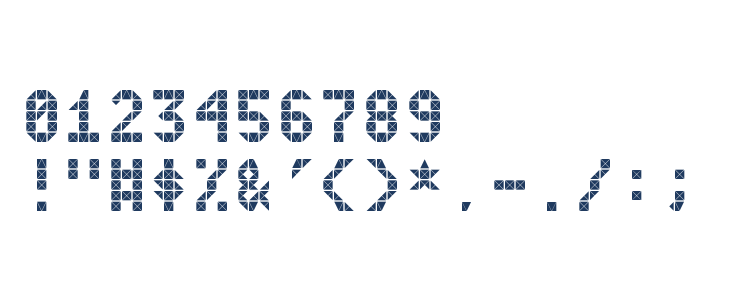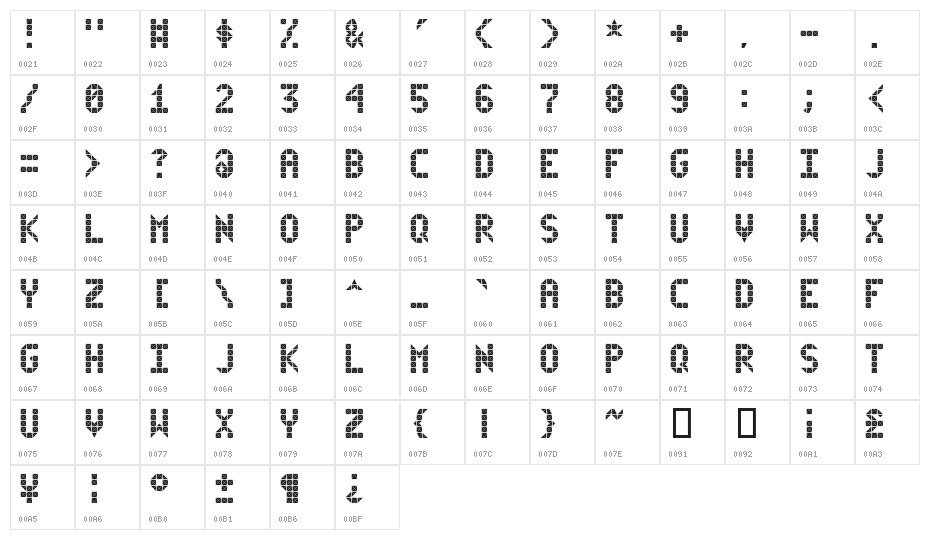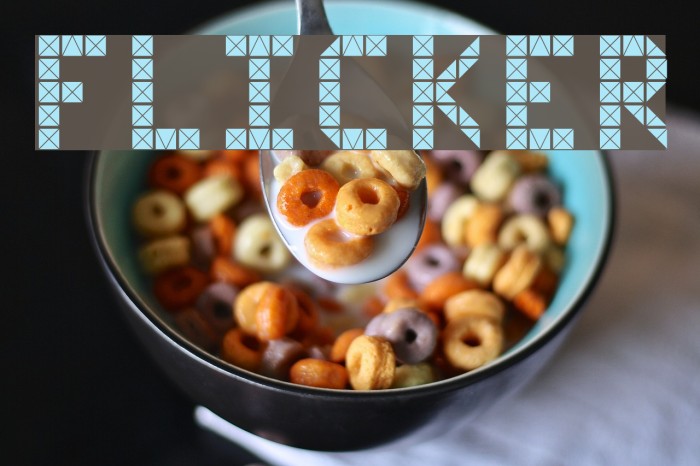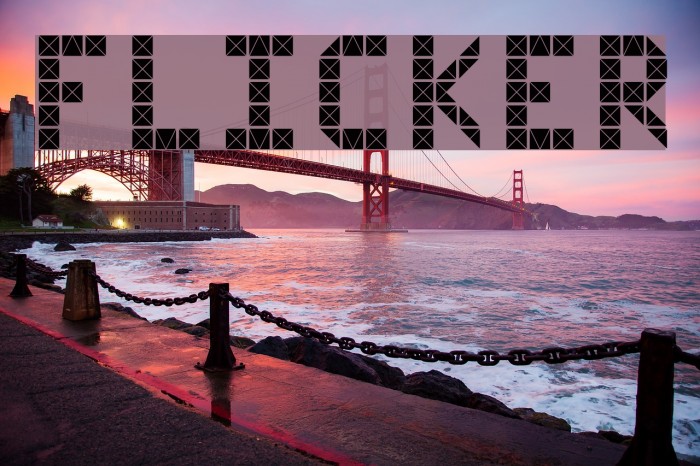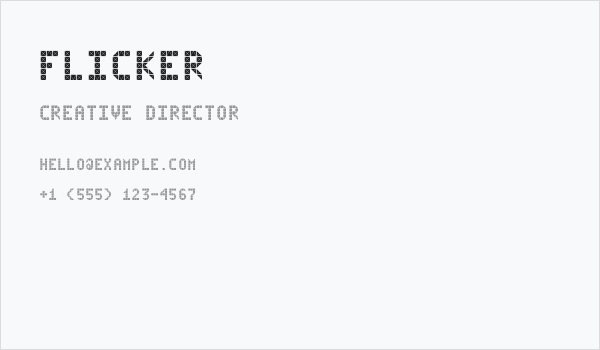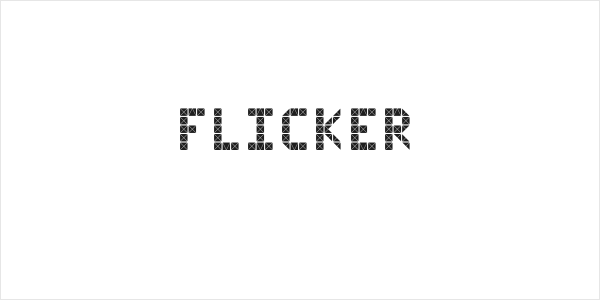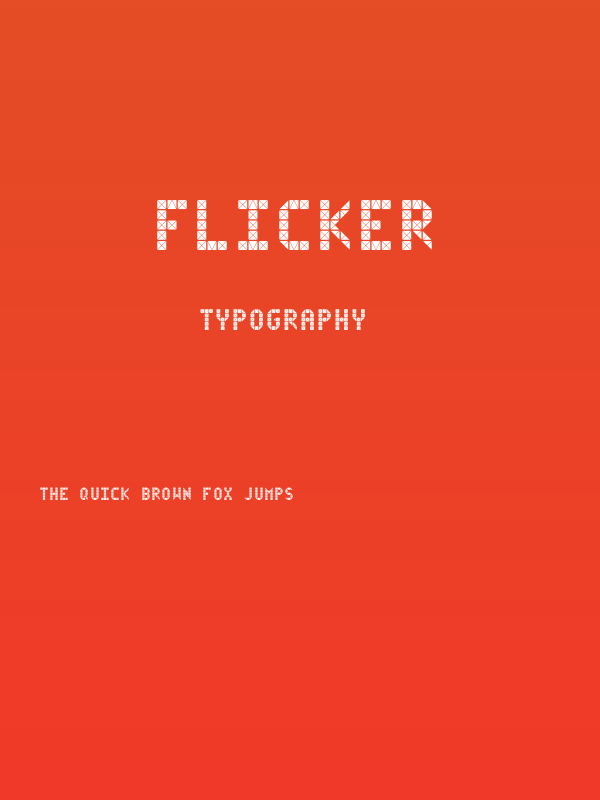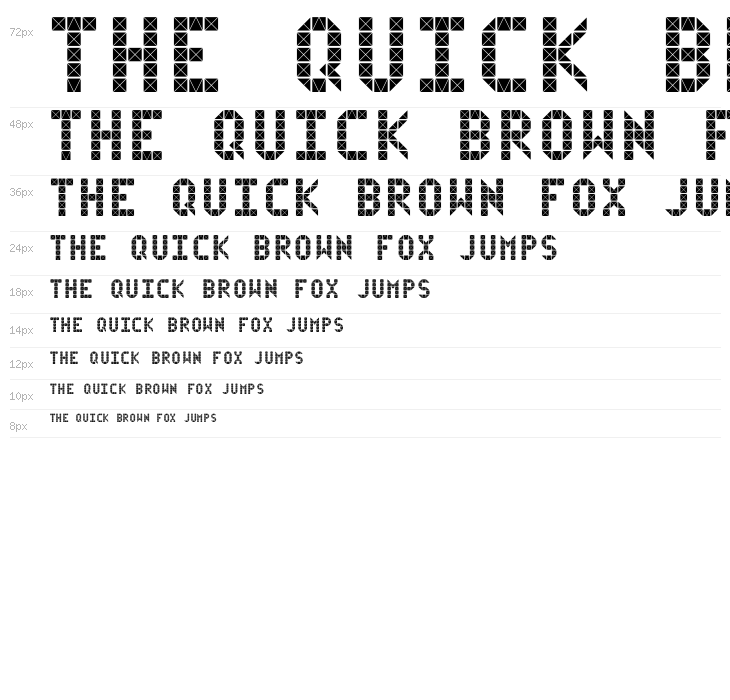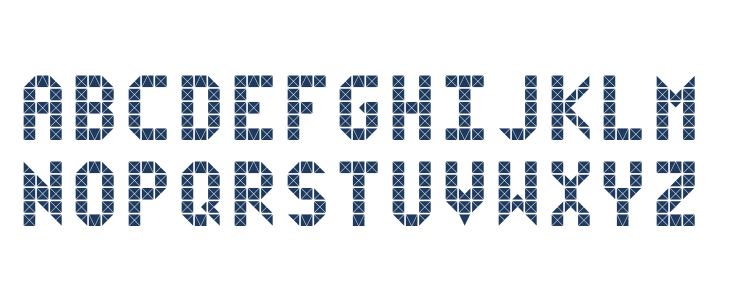
Flicker Font
Flicker Description
This font features a unique geometric pattern, with each character composed of small triangular shapes that create a mosaic-like appearance. The design is bold and eye-catching, making it suitable for projects that require a modern and artistic touch. The uppercase and lowercase letters maintain a consistent style, while the numbers and special characters follow the same geometric theme. The overall look is both structured and playful, offering a distinctive aesthetic that stands out in any design context.
Proposed ProjectsIdeal for posters, branding, and digital art projects that require a modern and artistic flair.